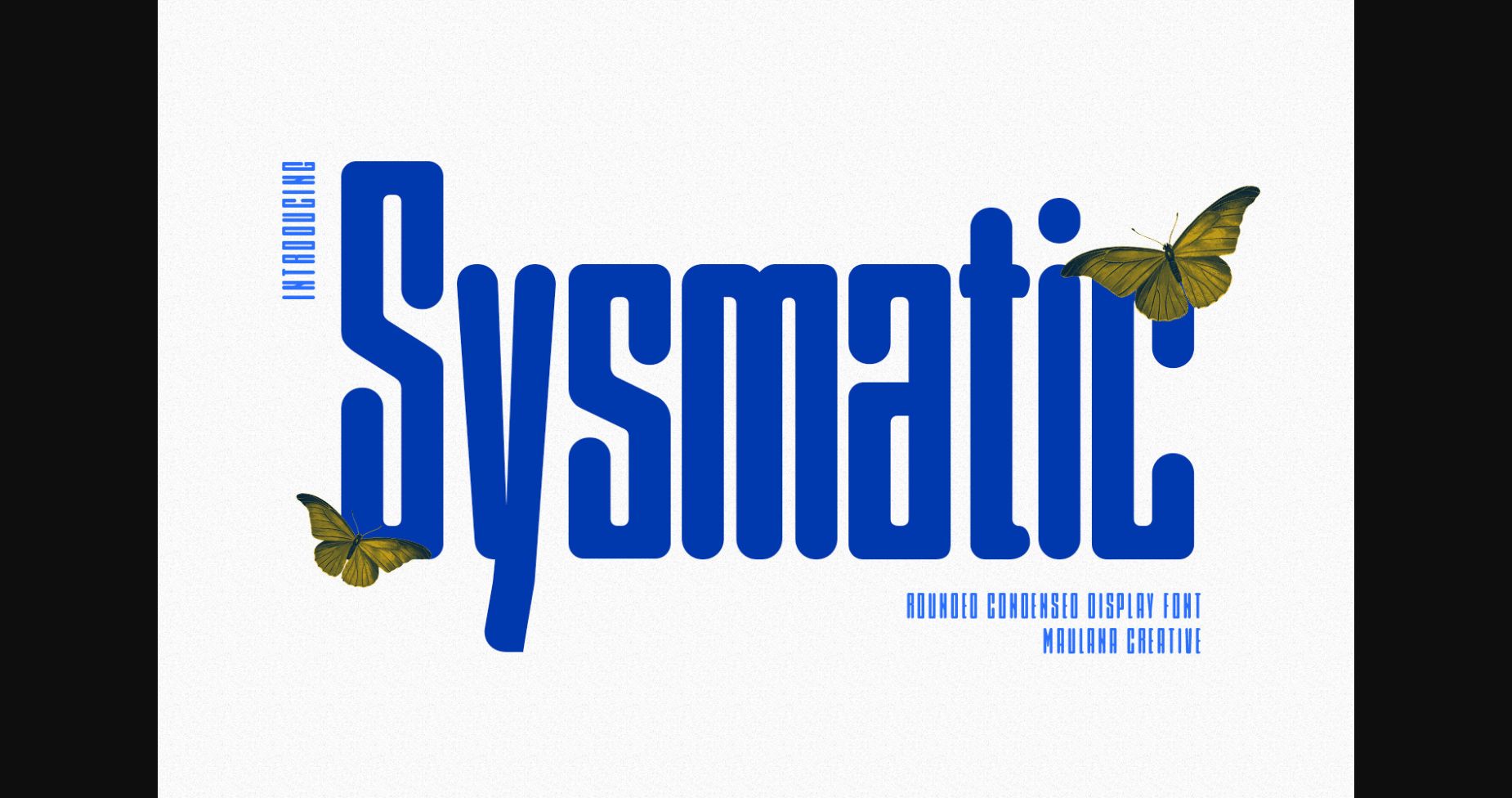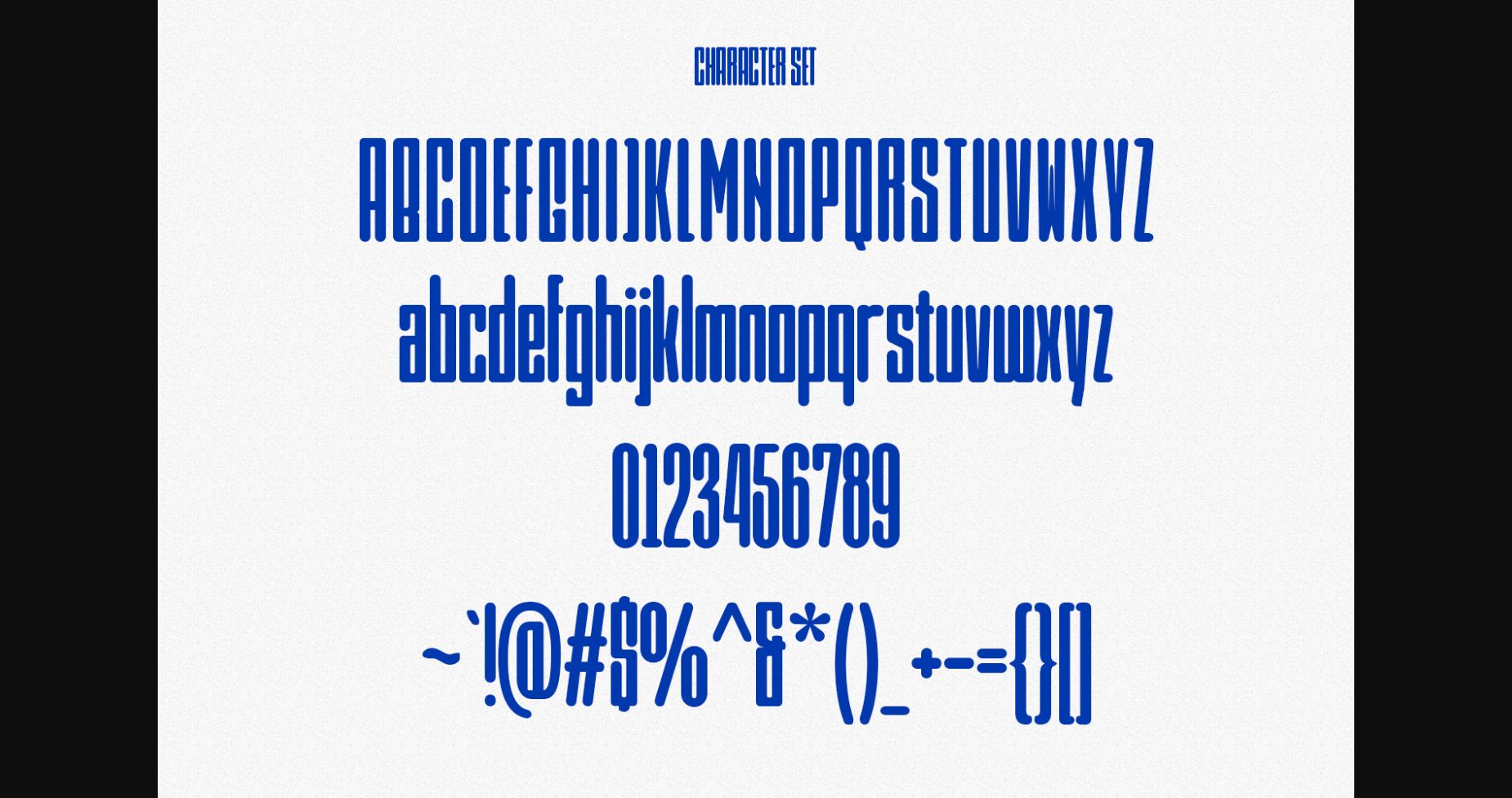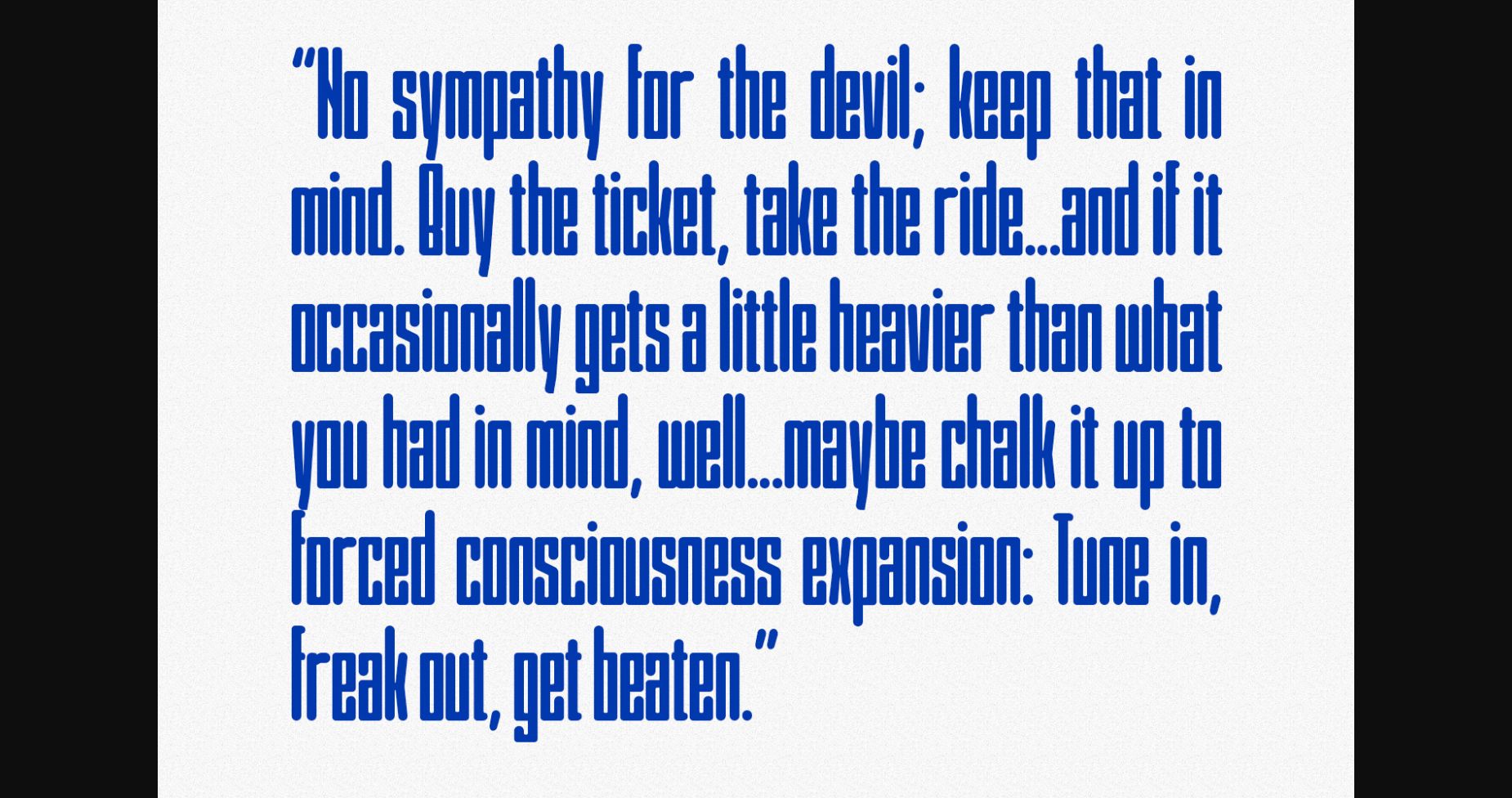
About Sysmatic Font
Sysmatic is a super condensed sans serif font. With medium low contrast stroke, fun character with a bit of ligature, and alternates to give you extra creative work. Sysmatic is good for logo design, social media, movie titles, book titles, short text, and even long text, and good for your secondary text with a sans or serif. Make stunning work with Sysmatic font.